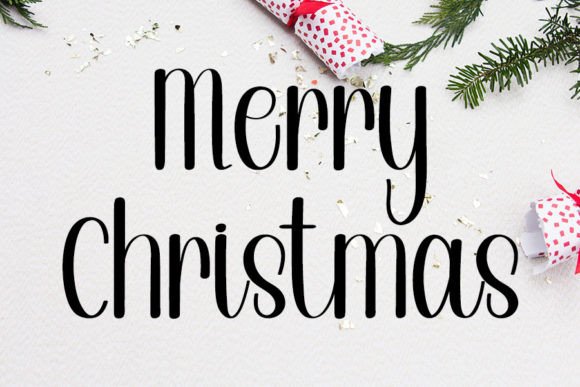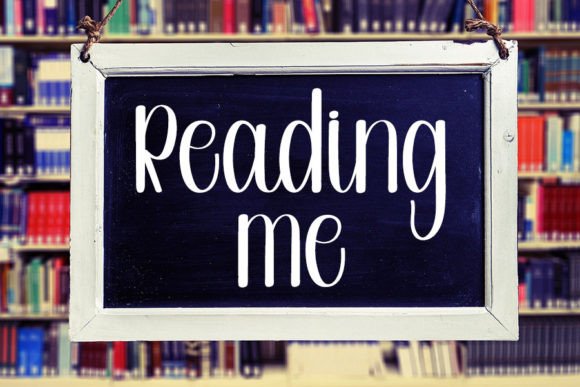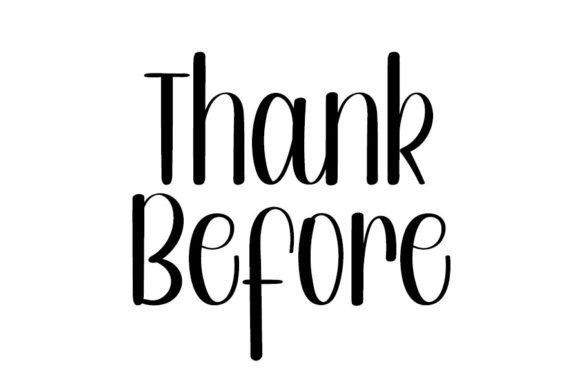
Wonderful Font
About Wonderful Font
Wonderful Font is a neat and beautiful handwritten typeface that carries an elegant touch, making it ideal for a wide range of creative projects. Its distinct and timeless style allows designers to add sophistication and charm effortlessly.
Elegant Handwritten Style
This font features smooth, flowing lines that give your work a personal yet polished look. The elegant strokes of Wonderful Font evoke warmth and friendliness, making it perfect for projects that require a handcrafted feel.
Perfect for Various Design Projects
Wonderful Font fits perfectly in designs such as wedding invitations, greeting cards, social media posts, and branding materials. Its versatility means it can adapt to both formal and casual contexts, providing the right mood for each project.
Enhance Your Branding
Use WonderfulFont to elevate your branding with a touch of sophistication. Whether on logos, business cards, or packaging, this font helps create a memorable and approachable identity for your brand.
Timeless Appeal for Long-Lasting Designs
The timelessness of WonderfulFont ensures that your designs won’t look dated. It blends well with both modern and traditional styles, making it a valuable addition to any designer’s toolkit.
Why Choose WonderfulFont?
Choosing WonderfulFont means opting for a font that combines beauty, readability, and elegance. Its distinctive handwritten character enhances your projects while maintaining clarity, making your work stand out in any medium.